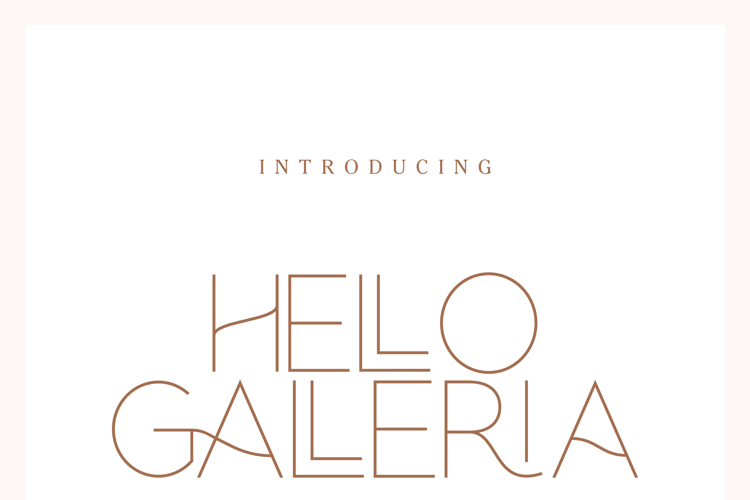
Hello Galleria Sans Font
About Hello Galleria Sans Font
Hello Galleria is sans serif and script font duo usually used for wedding events to be placed on invitation cards or social media broadcast information.